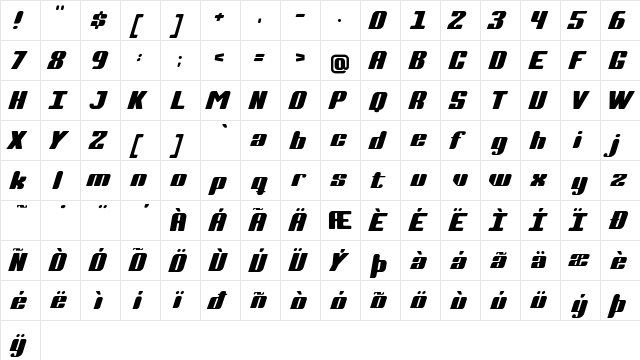
Complete Italic
Design Context for Complete Typeface
Complete offers clean, dependable letterforms without strong stylistic allegiance, making it a practical choice for designers who need flexibility. The dynamic lean of this cut emphasises speed and emphasis in any layout.
Pro Tip: Try Complete for annotation and caption copy alongside an upright companion — the contrast in angle creates a dynamic but ordered typographic system.